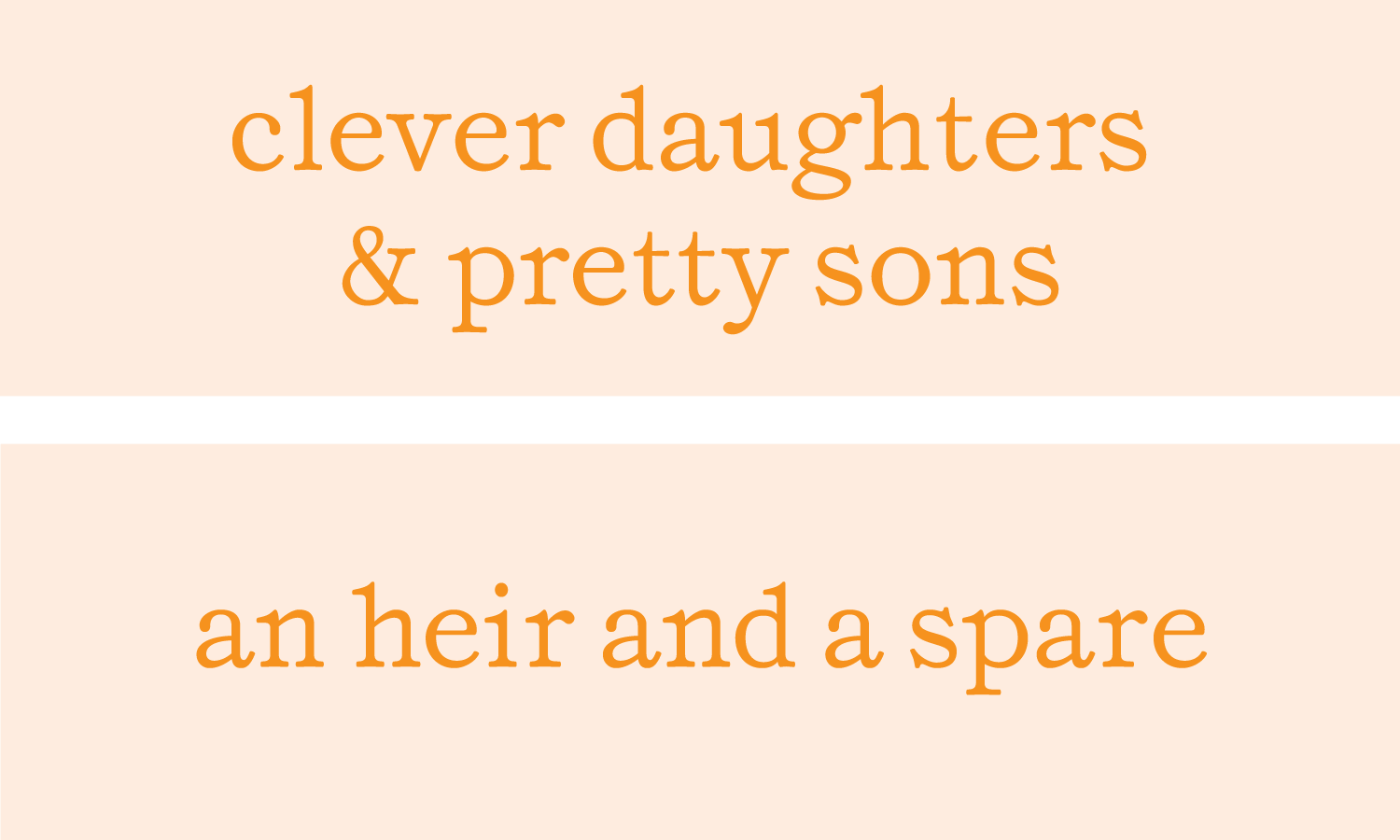
Evelyn
Typeface
A revival of a text typeface from a 1901 volume of The Diary of John Evelyn, preserving the structure, details, and quirks of the original
Ideal for typesetting long passages of text at 9 to 11 points, with generous leading